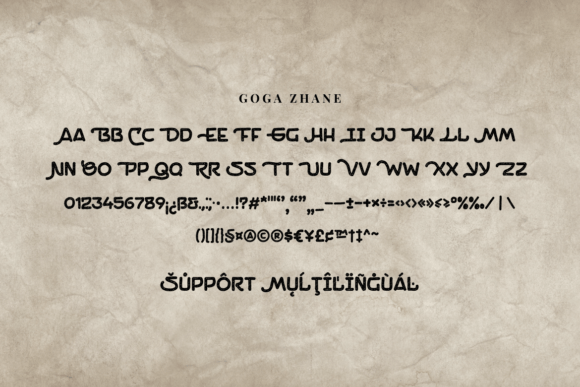
Introduction to Goga Zhane Font
There’s something magical about stumbling upon the perfect design element that elevates your creative project to the next level. For many designers, this moment often comes in the form of a unique and captivating font that adds an extra layer of personality to their work. If you’re one of those designers, then you’re in luck because today we’re going to introduce you to a timeless treasure that’s sure to become a staple in your design arsenal: the Goga Zhane Font.
With its organic texture and free-spirited vibe, this vintage display font is the perfect companion for any creative project, whether you’re working on a quote, poster design, personal branding, or product packaging. The best part? It’s available for free download, making it an accessible design resource for designers of all levels.
Key Features of Goga Zhane Font
- High-quality font with a unique, creative design suitable for various projects, including logos, branding, and marketing materials.
- Designed with a high level of detail and precision, making it perfect for high-resolution printing and digital displays.
- Perfect for designers and artists working on creative projects, including graphic design, typography, and visual identity design.
Honest Review: Goga Zhane Font
As a designer, I’m always on the lookout for high-quality design resources that can elevate my creative projects. Recently, I stumbled upon the Goga Zhane Font, and I’m excited to share my honest review with you.
- ✨ Beautiful, elegant design that’s perfect for luxury brands or high-end creative projects.
- ✨ High-quality typography that’s crisp and clear, even when scaled up or down.
Any limitations:
- ⚠️ Limited character set, which may not be suitable for projects that require a wide range of languages or characters.
- ⚠️ Not ideal for use in small text sizes, as the font may become difficult to read.
Overall, I’m really impressed with the Goga Zhane Font. It’s a high-quality design resource that’s perfect for creative projects where a touch of elegance is needed. While it may have some limitations, it’s still a great option for designers who want a premium feel without breaking the bank.
Tips for Getting the Most Out of Goga Zhane Font
To get the most out of Goga Zhane Font, try pairing it with a transparent background to create a unique and eye-catching design. You can also experiment with different font sizes and colors to add more visual interest to your project. This versatile font is perfect for any creative project, from social media graphics to presentations.
Goga Zhane Font is ideal for a wide range of applications, including logo design, branding, and marketing materials. It’s also great for creating presentations, infographics, and other visual content. With its high-quality design and transparent background, this font is a valuable design resource for any creative project.